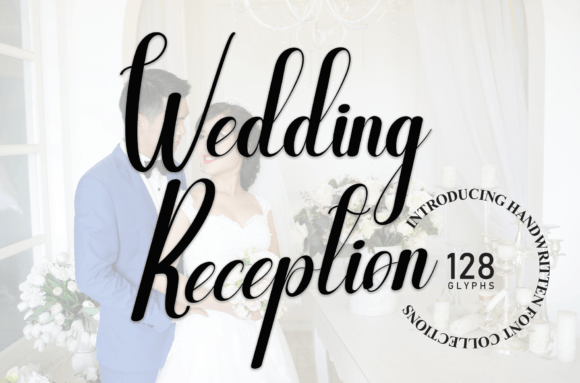
Wedding Reception Brings Warmth to Editorial Design
I remember the exact moment I knew my blog needed a new voice. I had spent three hours staring at a draft for a feature article on slow living, and the header image felt cold. The photographs were warm, the topic was inviting, but the typeface sitting at the top of the page felt like a stranger at a family dinner. That is when I started searching for a font that could carry the emotional weight of the words I was publishing. That is when I found Wedding Reception.
Wedding Reception is a sweet and friendly handwritten font. It does not shout for attention, but it does not fade into the background either. It lands somewhere between a personal note and a polished design element, which is exactly the balance I needed for my editorial projects. The moment I previewed it on a mock header, I knew I had found something special.
A Font That Feels Like a Conversation
What struck me first about Wedding Reception was its honesty. So many handwritten fonts try too hard to look perfect, smoothing every curve until the personality evaporates. This one does not do that. The letters feel fresh and neat without being rigid. There is a natural rhythm to the way the characters sit next to each other, as if someone sat down with a fine pen and wrote the words just for you.
I tested it on a blog header for a lifestyle piece about morning routines. The title read Start Here in Wedding Reception, and suddenly the whole page felt approachable. It was no longer a wall of content, it was an invitation. That is the power of a well-chosen display font. It sets the emotional temperature of everything that follows.
For my editorial projects, I have come to rely on Wedding Reception for titles, section headings, and pull quotes. It brings a human touch to layouts that might otherwise feel too mechanical. When I place it above a clean serif font for body copy, the contrast is pleasing without being jarring. The handwritten quality adds texture, while the serif keeps the reading experience grounded and comfortable.
Where Wedding Reception Shines in Real Projects
As someone who creates content across multiple formats, I have found Wedding Reception surprisingly versatile. Here is where it has worked best for me so far:
- Blog headers and article titles – It gives each post a distinct personality without overwhelming the page.
- Newsletter graphics – A short welcome line in Wedding Reception makes subscribers feel like they are receiving a personal letter.
- Ebook covers and chapter openers – For a recipe guide I designed, the chapter titles in Wedding Reception softened the layout and made the content feel more inviting.
- Printable planners and worksheets – The font reads clearly at medium sizes, which is essential when people are printing and writing in the spaces you provide.
- Pull quotes in digital magazines – A highlighted line in Wedding Reception draws the eye naturally and gives the reader a moment to pause.
I also used Wedding Reception in a wedding guide for a friend who was planning her own celebration. That project felt like the font had come home. The save-the-date mockup, the welcome sign draft, the thank-you card layout, every piece felt cohesive because the typeface carried the warmth of the occasion without falling into cliché.
Readability in Screen and Print
One concern I always have with handwritten fonts is legibility, especially on screens. Wedding Reception handles this well. The letterforms are distinct enough that readers will not struggle to decode words, even on mobile devices. I tested it on a phone screen at 24 pixels for a newsletter header, and the characters remained clear. For longer passages, I would not recommend it as a body font, but that is not its purpose. As a display font, it excels.
In print, the font holds up beautifully. I exported a few pages of my recipe ebook as a PDF and printed them on uncoated paper. The ink coverage looked natural, and the handwritten quality translated without losing its charm. For anyone creating printable products, this is worth noting. A font that works well on screen can sometimes falter in print, but Wedding Reception maintains its personality across both mediums.
Pairing Wedding Reception with Other Typefaces
No font lives in isolation. The best editorial designs rely on thoughtful font pairing, and Wedding Reception is no exception. In my own projects, I have paired it with a clean serif font for body copy. The serif provides structure and readability, while Wedding Reception brings warmth and emphasis to titles and headings.
For captions and navigation elements, I prefer a neutral sans serif font. The contrast between the handwritten display and the clean sans creates visual hierarchy without confusion. Readers instinctively know where to look first because the script font signals importance. This is especially useful in layouts with multiple content blocks, such as a coaching workbook or a digital magazine spread.
Next time you are staring at a cold layout, unsure why it does not feel right, try swapping your title font for Wedding Reception. You might find, as I did, that the right typeface changes everything.